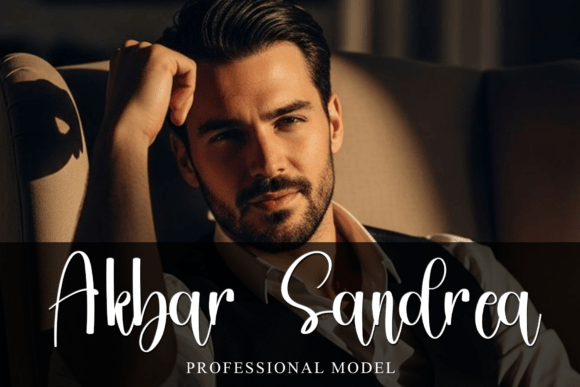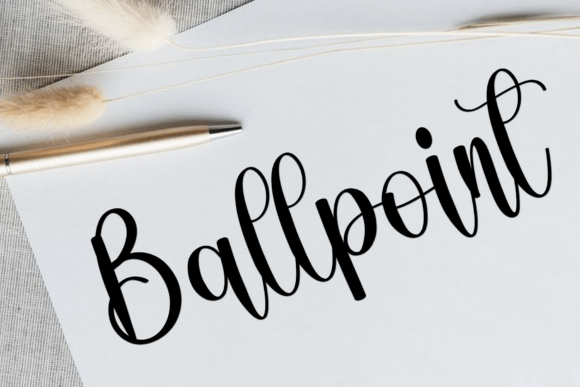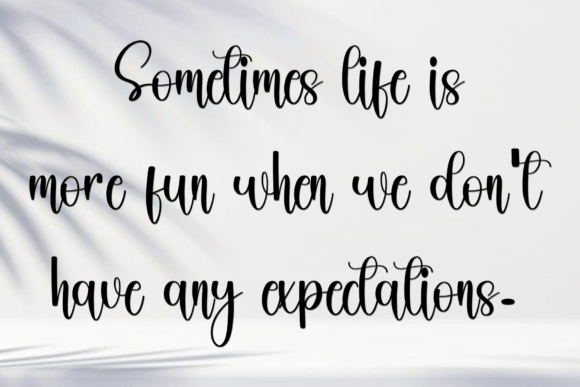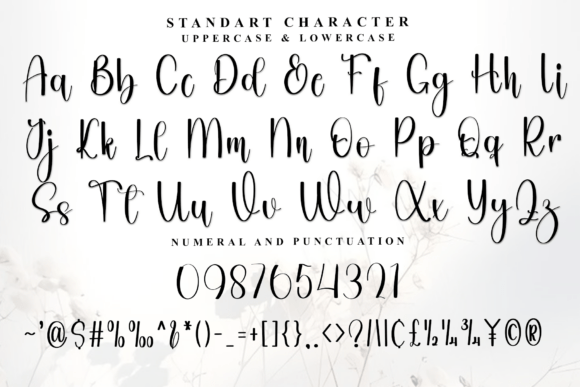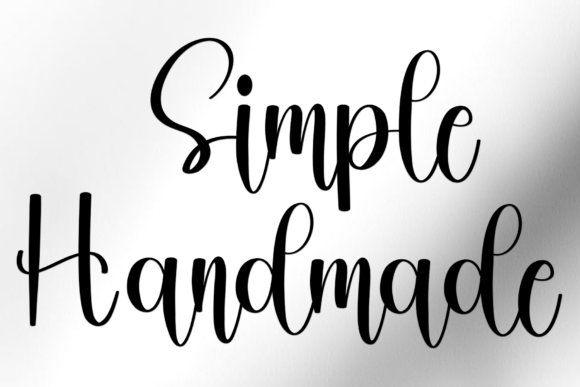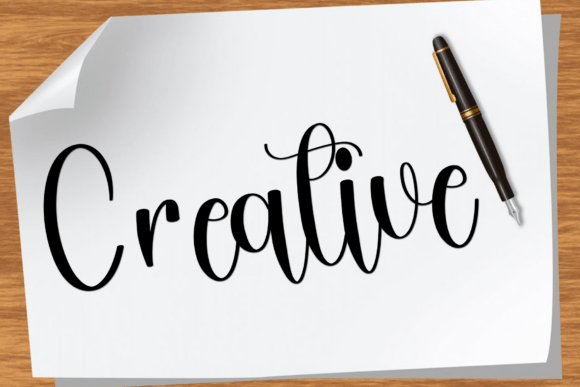
Introduction to Smooth Delightful Font
Smooth Delightful is an elegant and rhythmic script font that embodies a warm, hand-penned personality.
The typeface features vertically elongated letterforms with a consistent monolinear stroke weight and smooth character joins Its minimalist structure is defined by a high x-height and narrow character proportions, while subtle, curling flourishes on the ascenders provide a soft, approachable visual flow.